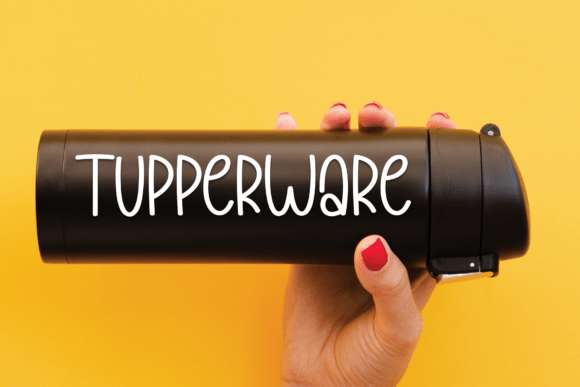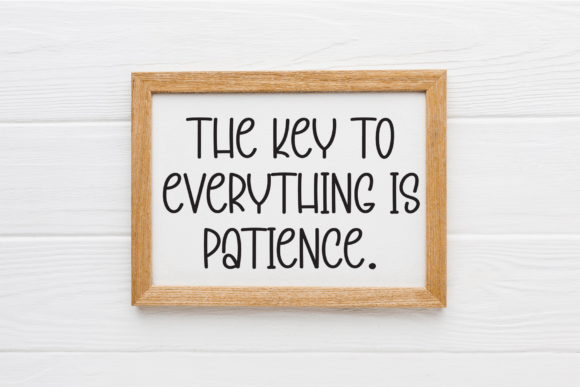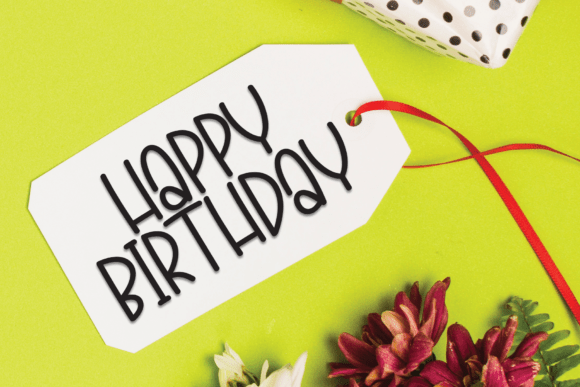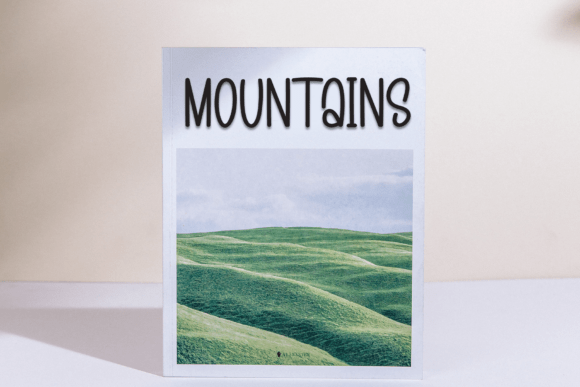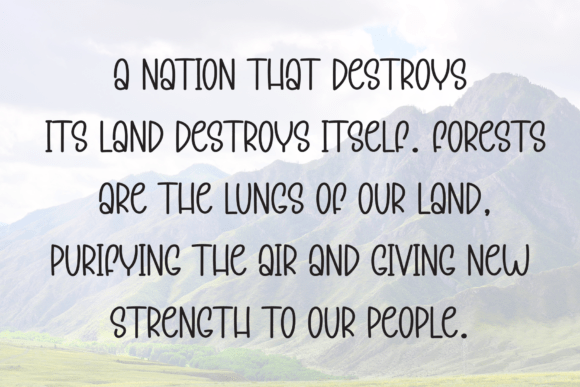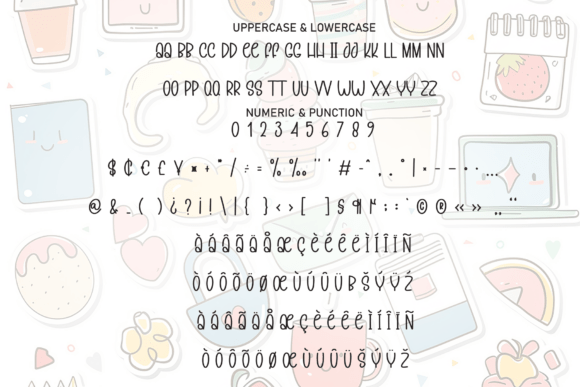
The Cute Bundle Font: A Playful Powerhouse for Your Designs
So, what makes the Cute Bundle Font so special? Let’s dive into the good stuff! ✨
- ✅ Bold and Expressive: This font is not shy. It’s designed to make a statement, and it does so with playful strokes and a healthy dose of personality.
- ✅ Handcrafted Charm: The Cute Bundle Font has a distinctly human feel to it, making it perfect for designs that need a personal touch.
- ✅ Attention-Grabbing: Whether you’re designing posters, merchandise, or social media graphics, this font is sure to turn heads.
- ✅ Versatile: From logo designs to party invitations, the Cute Bundle Font adapts to any layout with ease.
Of course, no font is perfect, and the Cute Bundle Font has a few minor quirks to consider: 🤔
- ⚠️ Legibility at Small Sizes: While the font is stunning at larger sizes, it can get a bit tricky to read when scaled down. Be mindful of this when designing for smaller formats.
- ⚠️ Limited Formality: Given its playful nature, the Cute Bundle Font might not be the best fit for very formal or corporate designs.
The Story Behind Cute Bundle Font: A Designer’s Inspiration
| Font Name | Cute Bundle Font |
| Author | Creativewhitee |
Q: Is the Cute Bundle Font suitable for body text?
A: While it’s primarily designed for display purposes, the Cute Bundle Font can be used for short paragraphs. However, for longer body text, consider a more legible font to ensure readability.